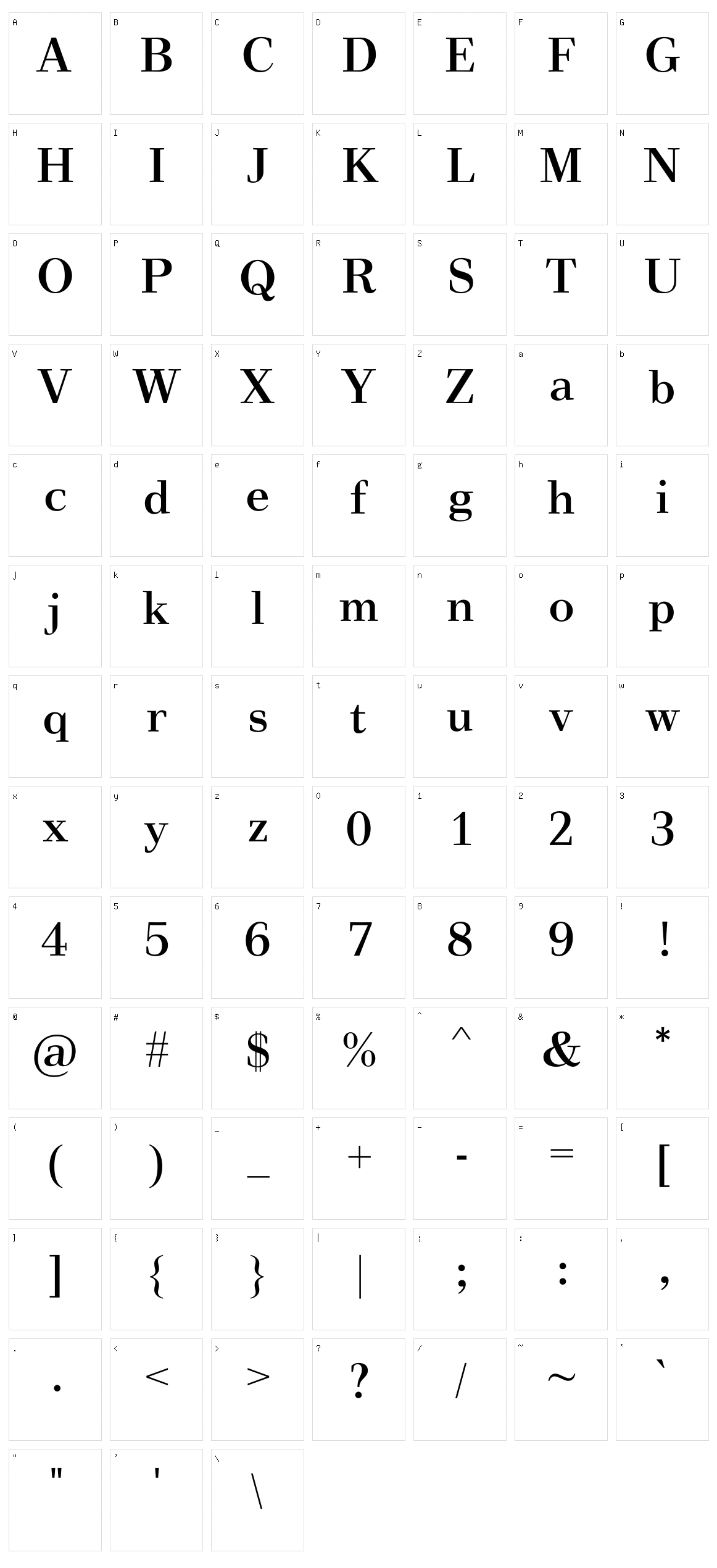
The free font Vinegar is carefully designed by Jelloween, showcasing a thoughtful balance of creativity and usability and falls under the Serif font style. When you download the ZIP file, it contains only 201.11 KB of font files, making it lightweight and quick to download. Please review the license details below to understand permitted usage and distribution rights. If license information is not available, we recommend using this font for personal projects only or contacting the author directly for commercial usage permissions.